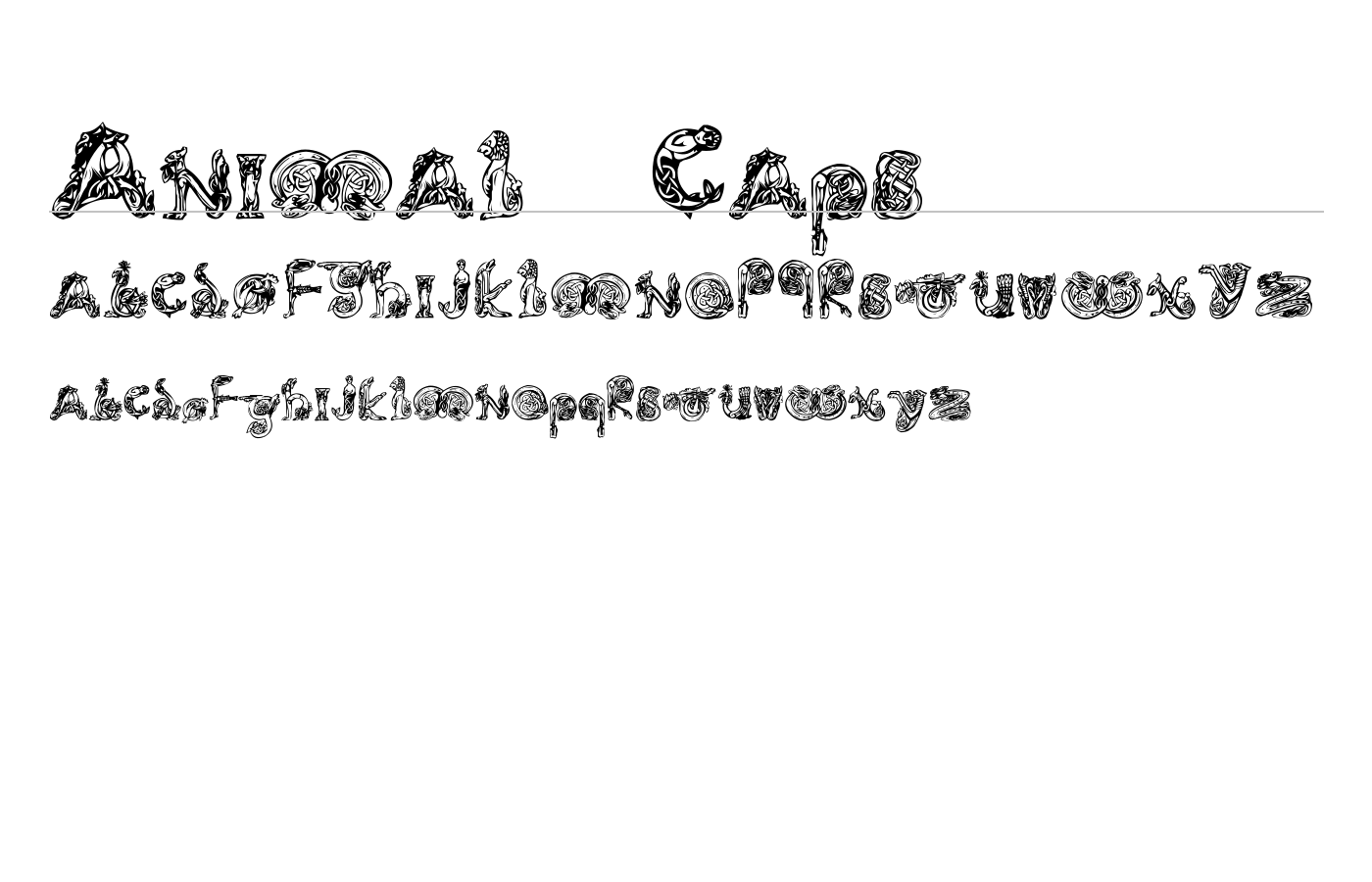
Animal Caps is a highly decorative serif font featuring intricate, organic patterns within each letterform that resemble foliage or animalistic textures. With its ornate and playful design, the font delivers a quirky, artistic vibe ideal for creative branding, posters, or headlines where a bold, eye-catching statement is desired. This font works best in display contexts where its complexity can be appreciated without sacrificing readability.
Animal Caps Font
About Animal Caps Font
| Font family | Animal Caps Font |
| Designer | MouserFonts - Jerry Landers |